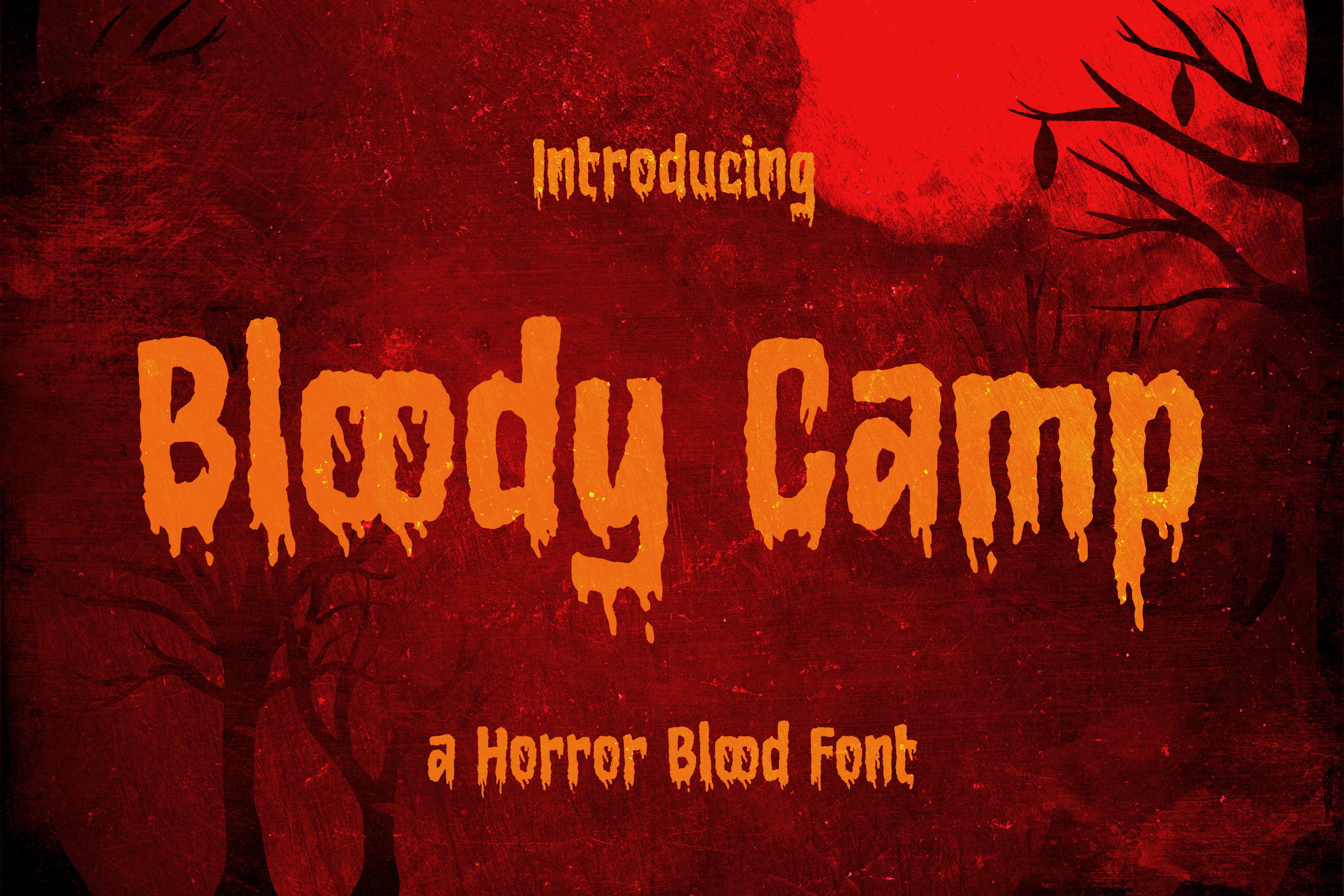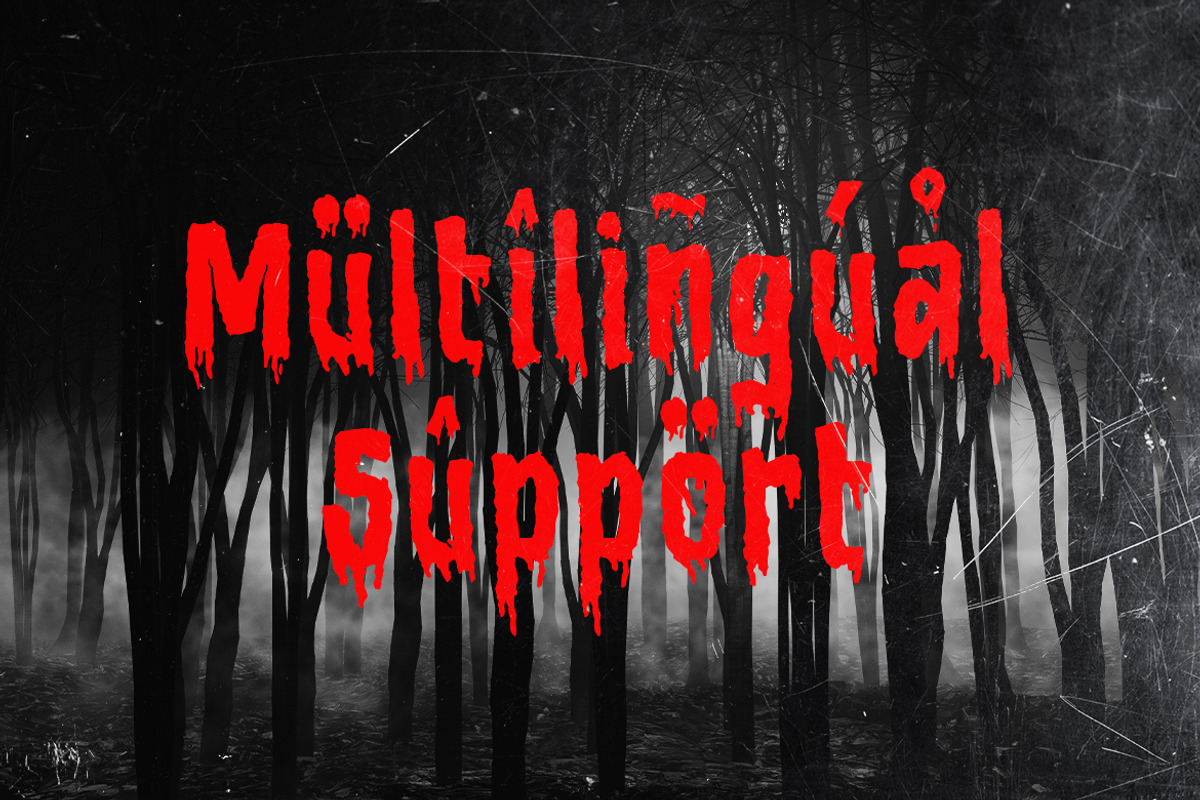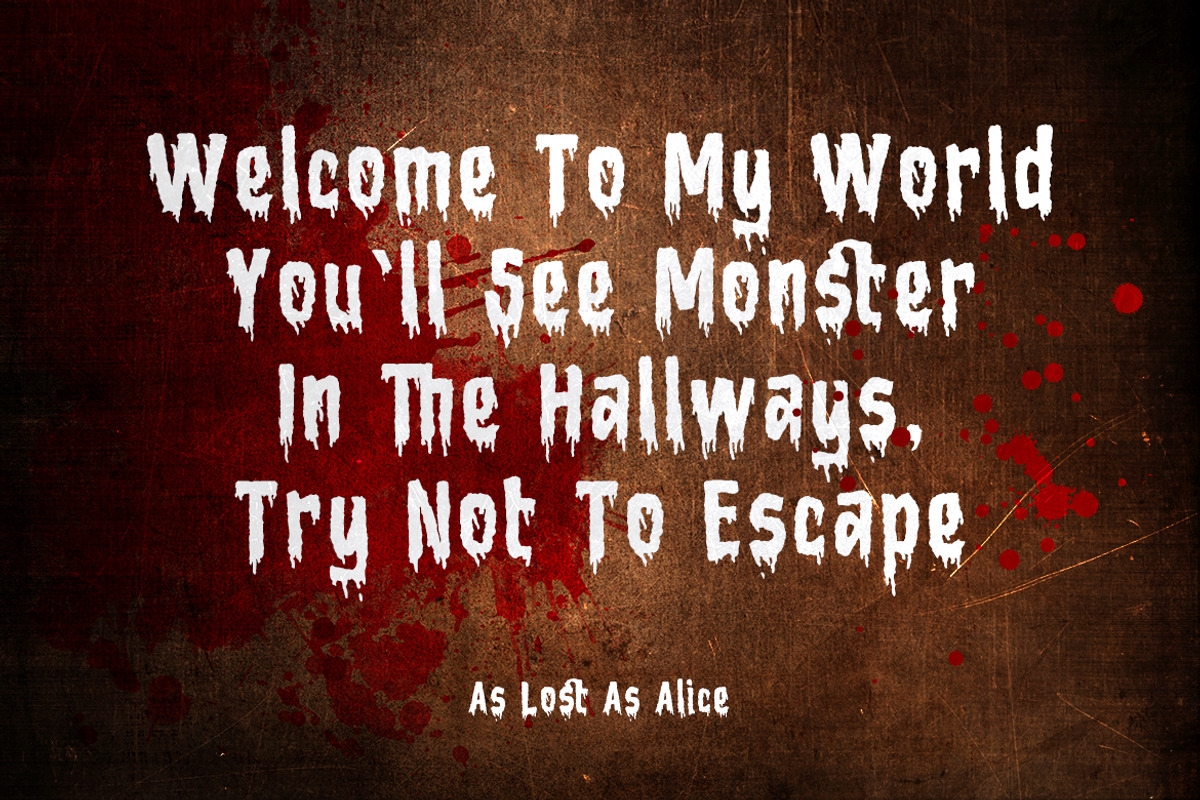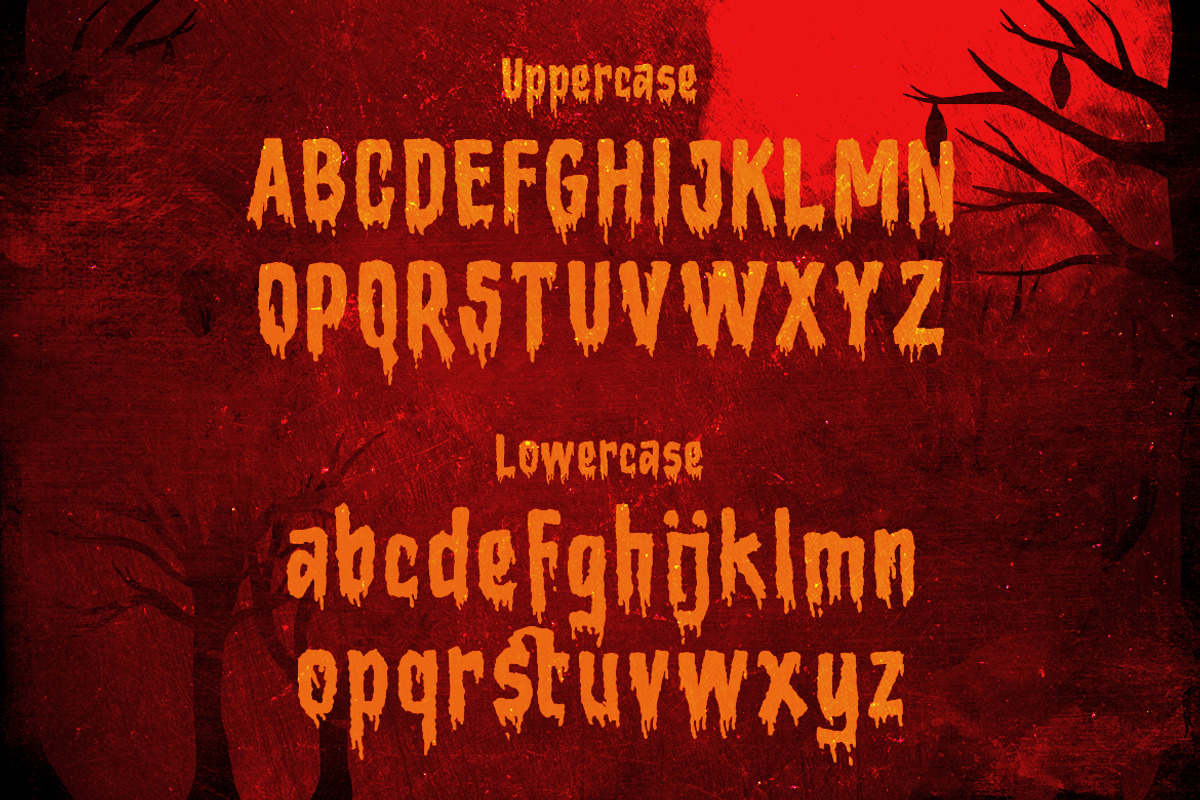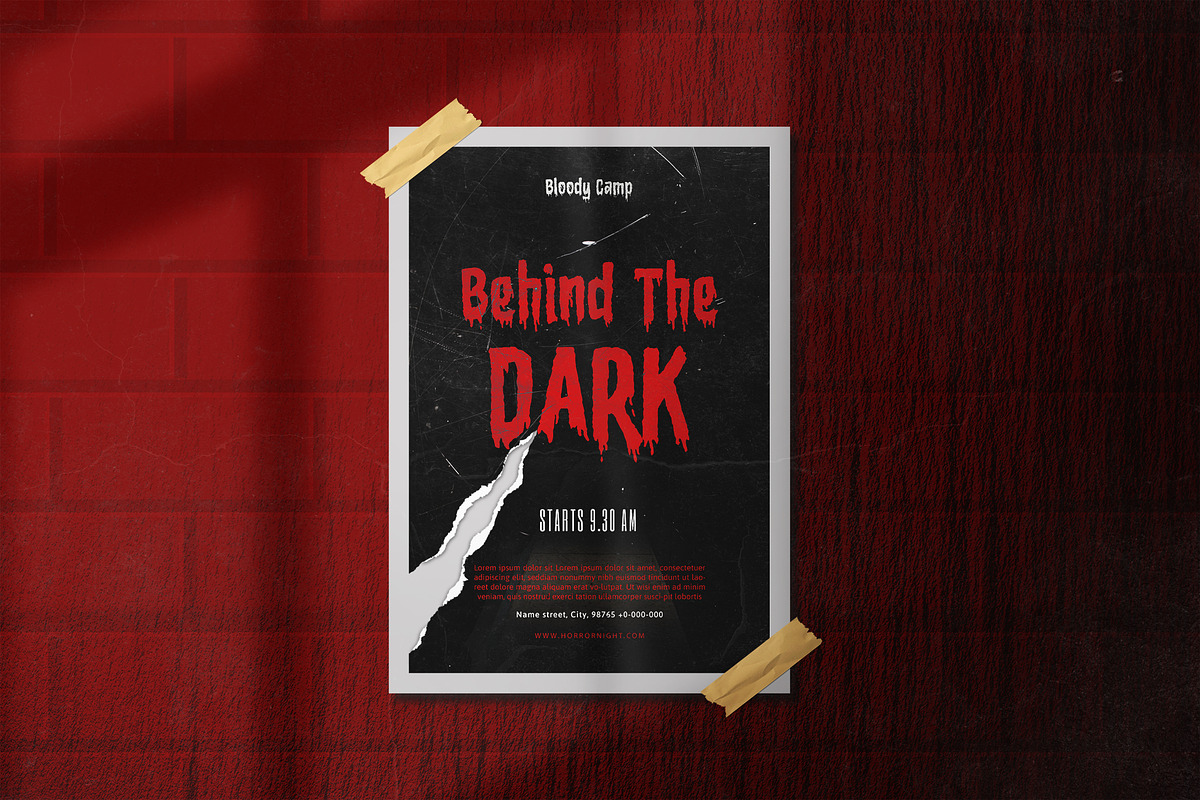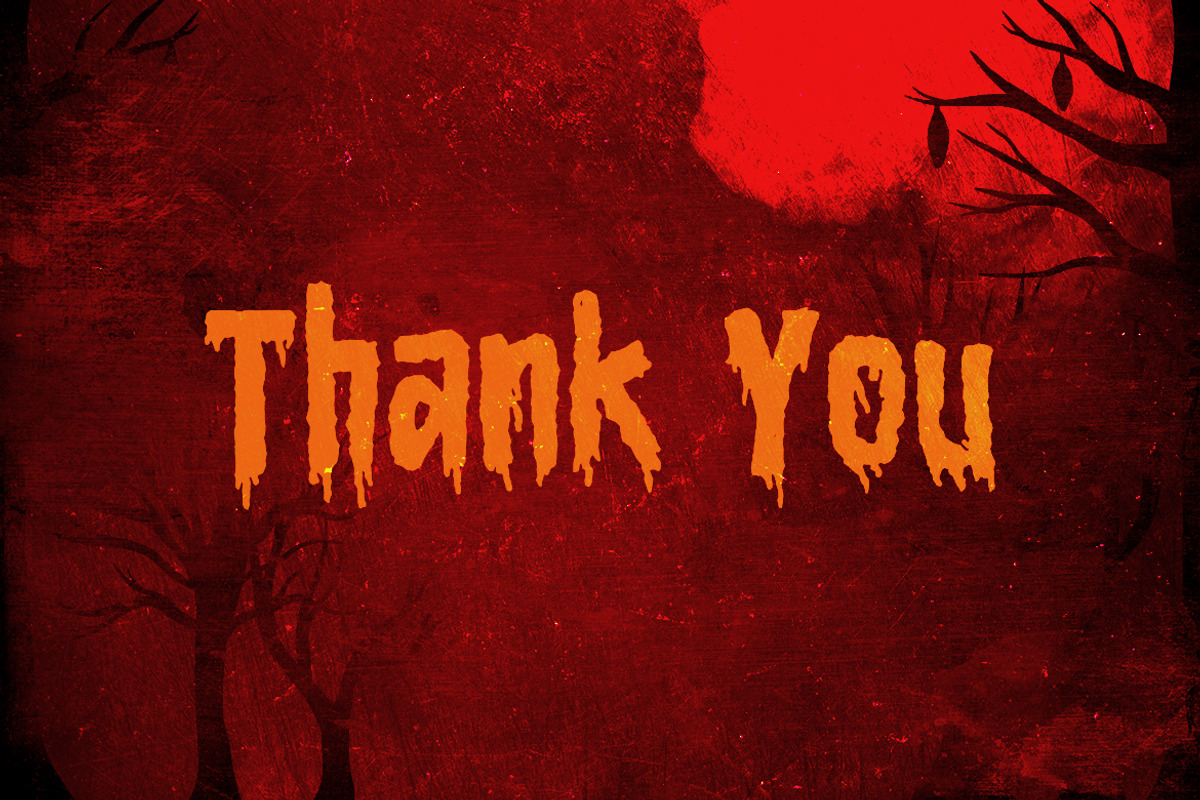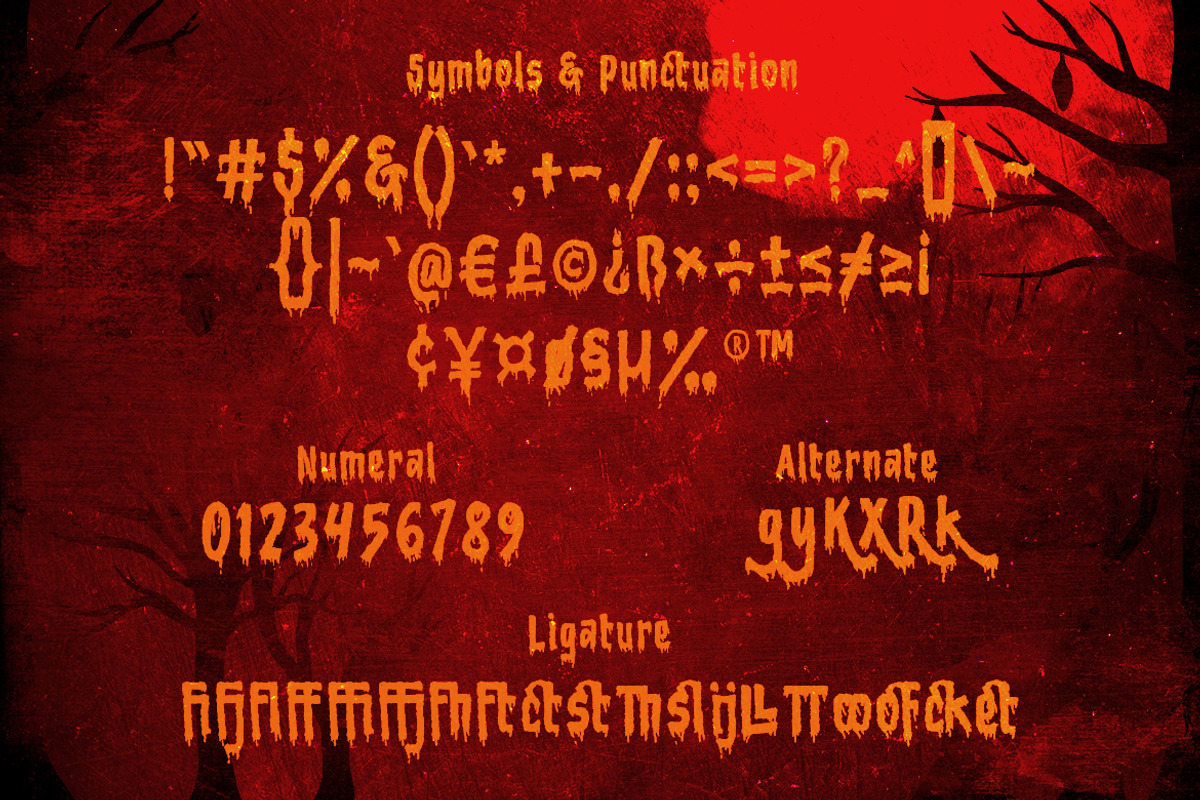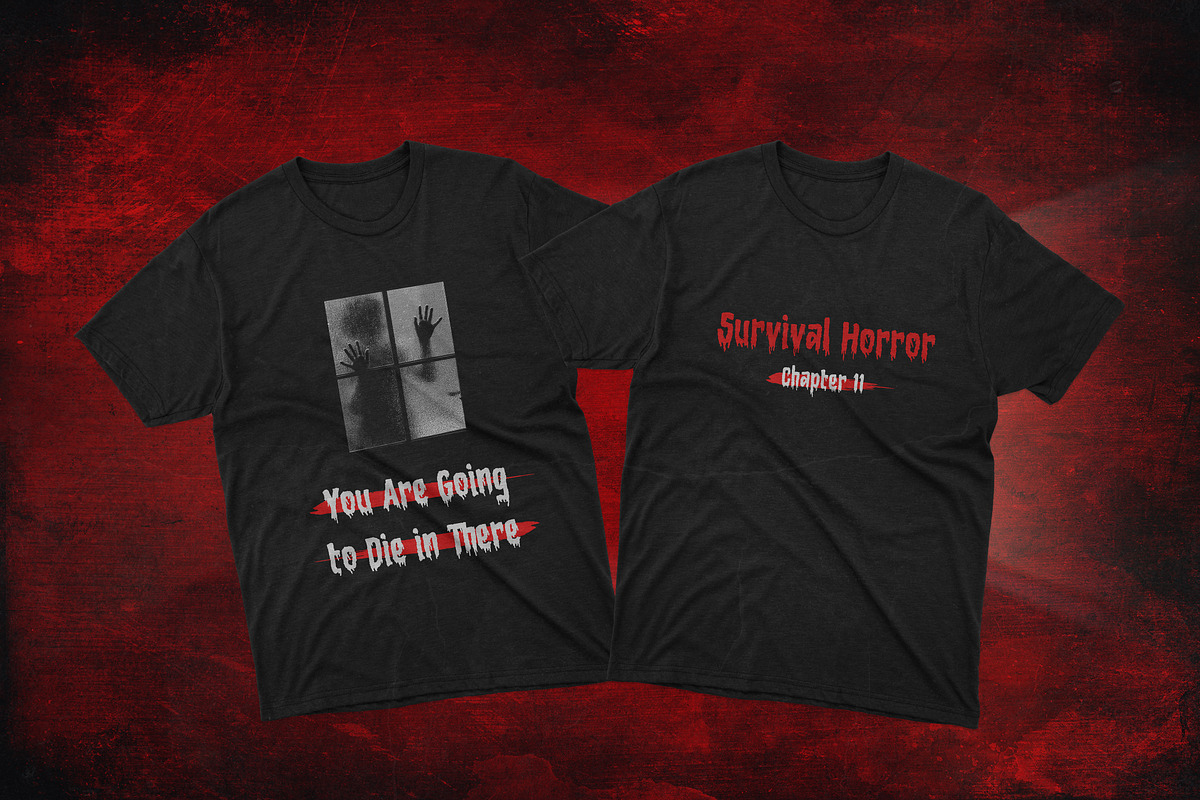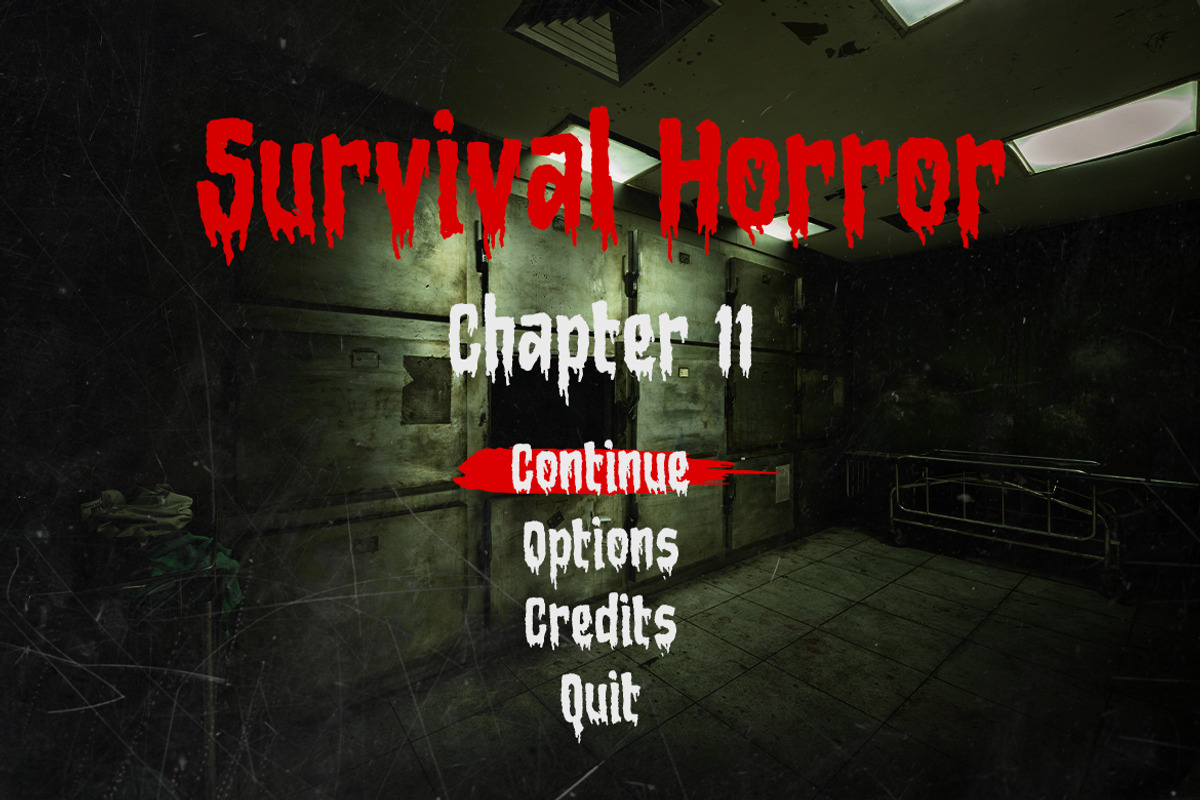
Bloody Camp - A Horror Blood Font
Bloody Camp is a horror blood font. Bloody Camp has a scary look and feel which makes it a great Halloween or thriller themed font. Suitable for Horror Game, Spooky T-shirts or crafts, Halloween Invitation, and many more.
- Symbols & Punctuation
- Numeral